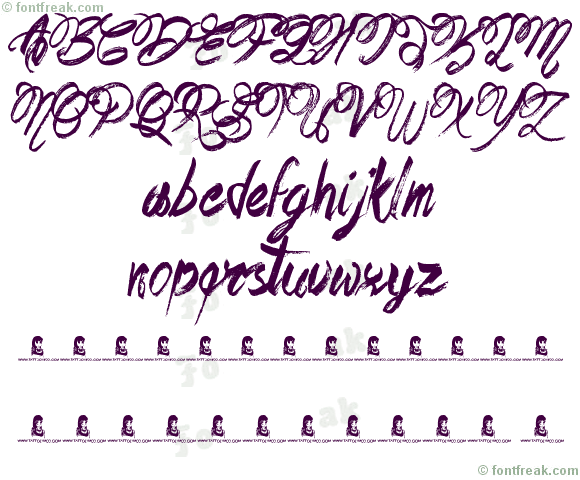
Art Brewery
About Art Brewery
The Art Brewery font by Jonathan S. Harris is a striking display typeface that captures the essence of artistic expression and creativity. Characterized by its bold, brush-like strokes, this font exudes a dynamic energy that is both contemporary and rustic. The unique stroke weight varies throughout, creating a sense of movement and fluidity. With its high contrast and expressive forms, the Art Brewery font is both eye-catching and versatile, making it an ideal choice for a range of design projects.
This font is particularly well-suited for use in creative contexts such as craft beer labels, artisanal product packaging, and tattoo parlor branding. Its distinctive aesthetic can elevate wedding invitations, lending a unique touch to the overall design. Additionally, Art Brewery works wonderfully for restaurant menus, where its artistic flair can help convey a brand's identity. Graphic designers and small business owners will find this font invaluable for creating memorable marketing materials that stand out.
The target audience for the Art Brewery font includes graphic designers seeking to add a unique typeface to their collections, small business owners wanting to establish a distinctive brand identity, and content creators looking for a visually engaging option for their projects.
What sets the Art Brewery font apart is its ability to blend sophistication with an artistic edge, making it a perfect choice for those who appreciate creativity in typography. This font offers a free download option, allowing users to experiment with its unique style without any financial commitment. Whether you’re designing for a small café or a vibrant art gallery, the Art Brewery font will undoubtedly leave a lasting impression on your audience.